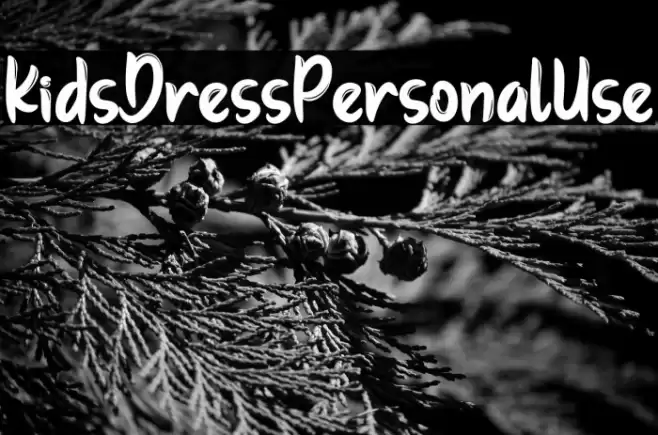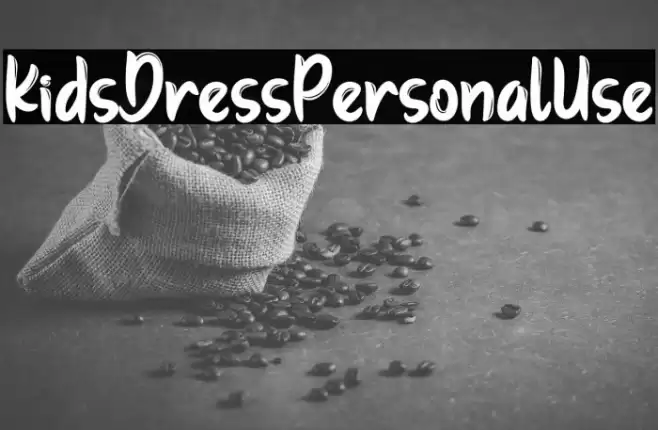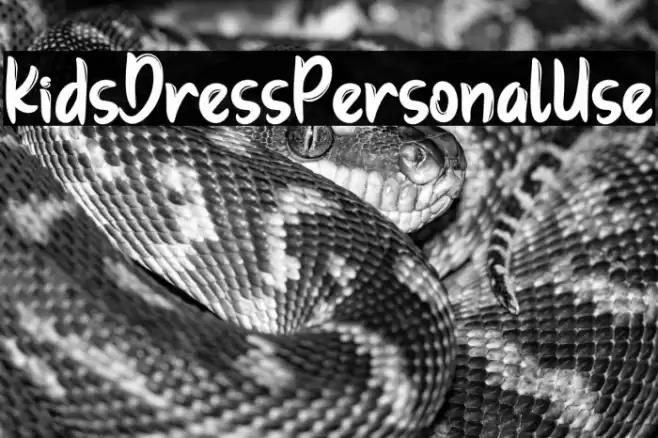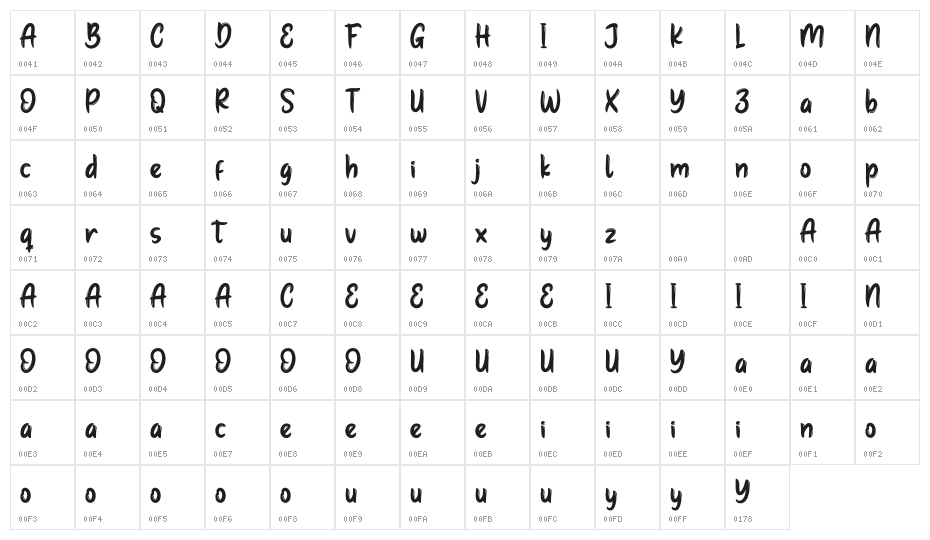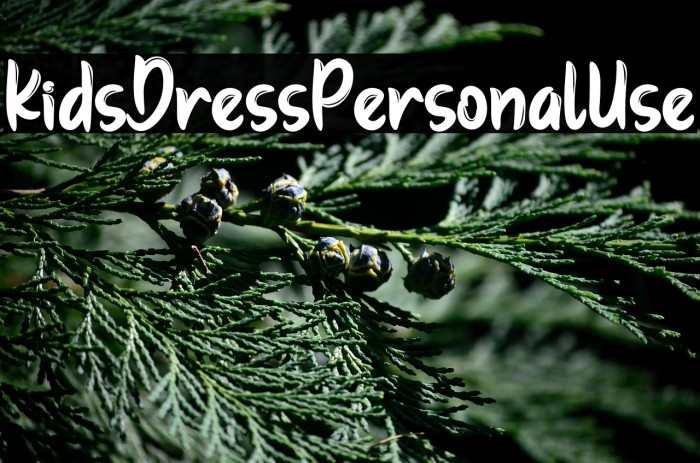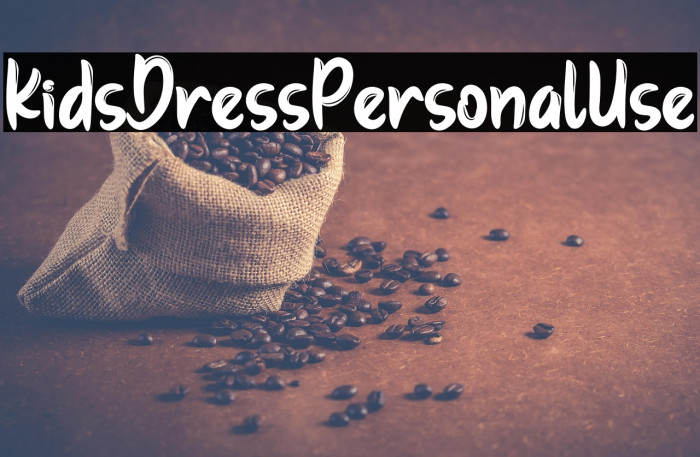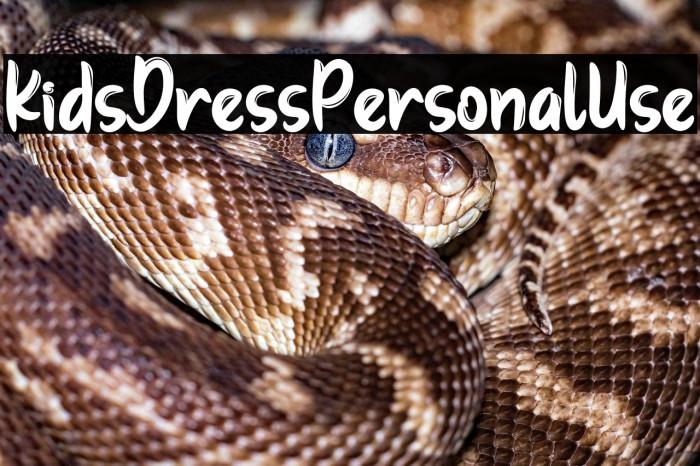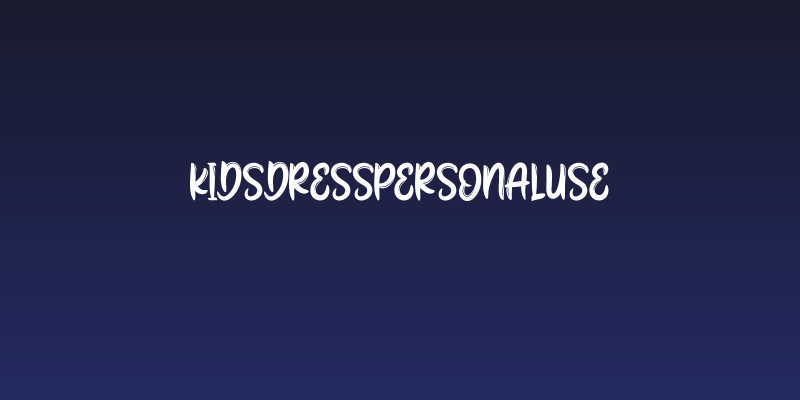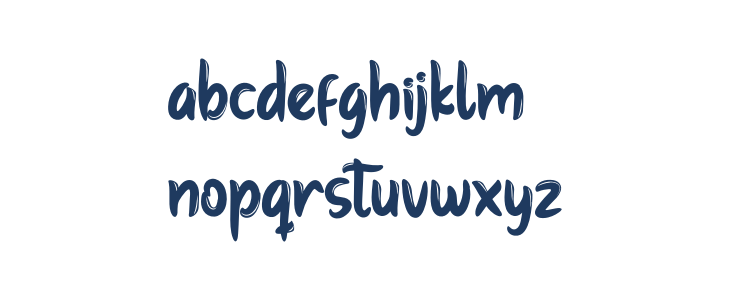
KidsDressPersonalUse Font
KidsDressPersonalUse Description
This playful and energetic font features bold, rounded characters with a hand-drawn appearance. The strokes are thick and dynamic, giving a sense of movement and liveliness. The uppercase and lowercase letters maintain a consistent style, with slight variations that add to the whimsical feel. The font lacks traditional serifs, emphasizing its casual and informal nature. The overall design is approachable and friendly, making it suitable for projects that require a touch of fun and creativity.
A playful, hand-drawn font with bold, rounded characters from Uncategorized fonts.
- Proposed Projects: Ideal for children's book covers, playful branding, party invitations, and creative posters.
- Overall Style: Playful